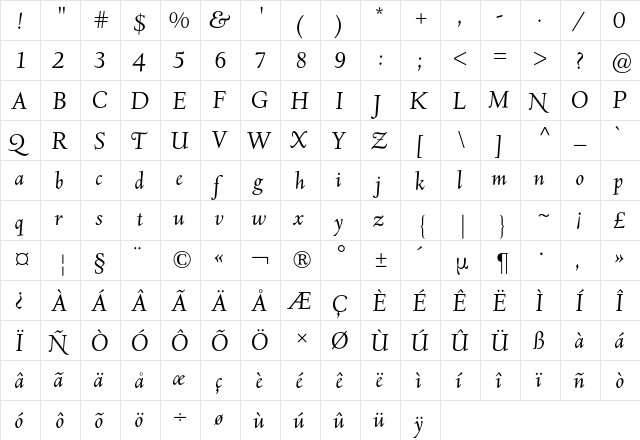
Deepdene BQ Regular
Design Context for Deepdene BQ Typeface
Deepdene BQ offers clean, dependable letterforms without strong stylistic allegiance, making it a practical choice for designers who need flexibility.